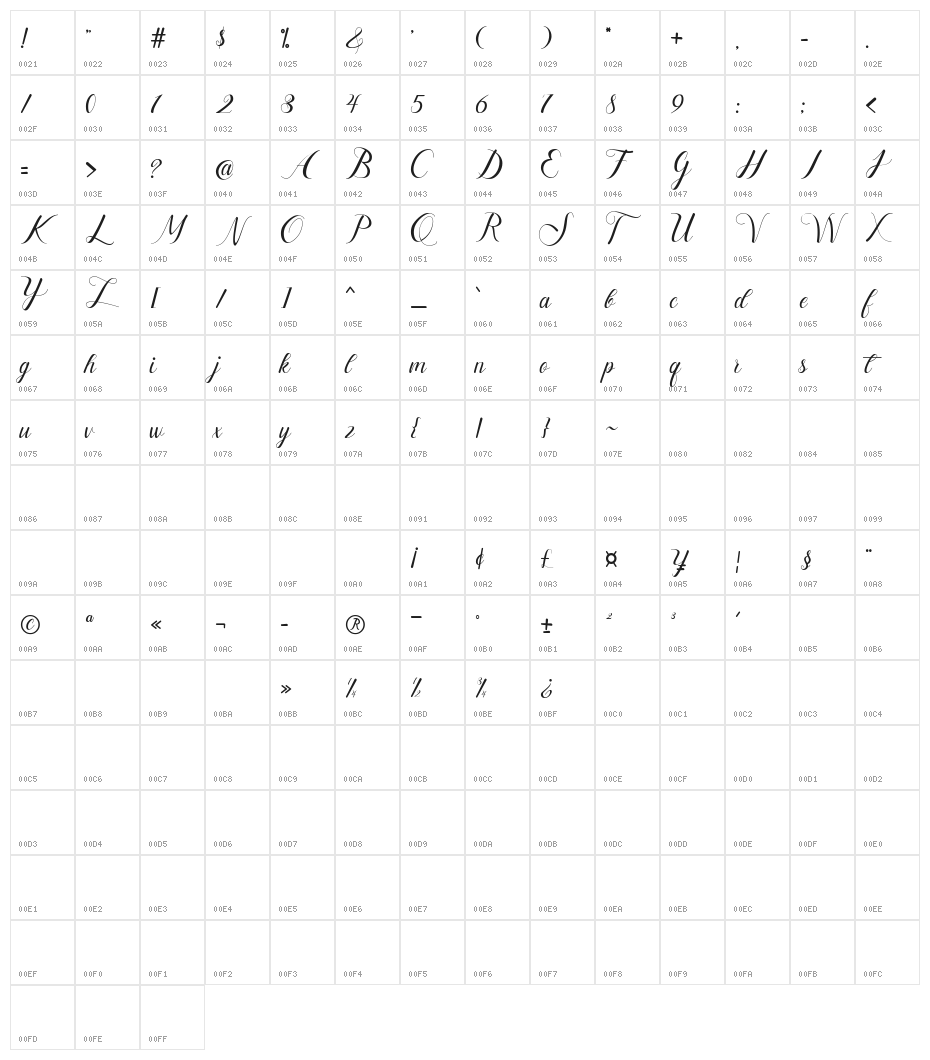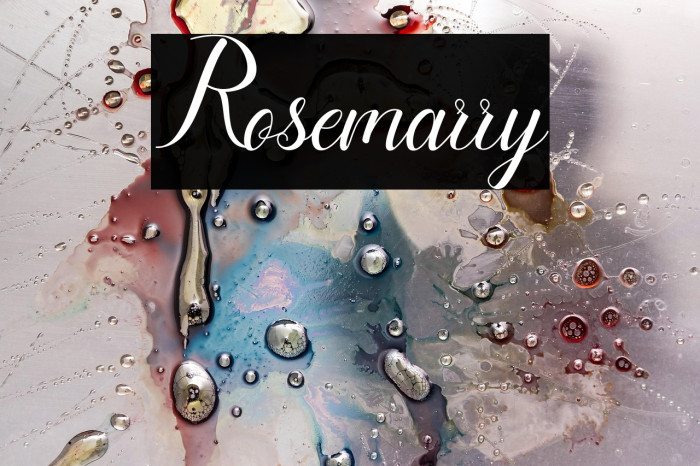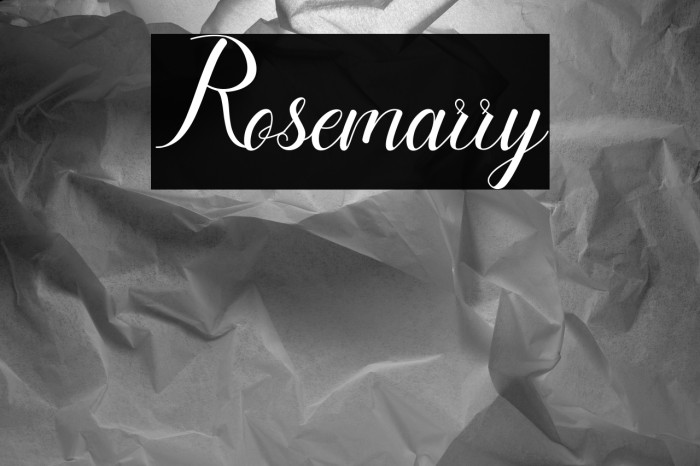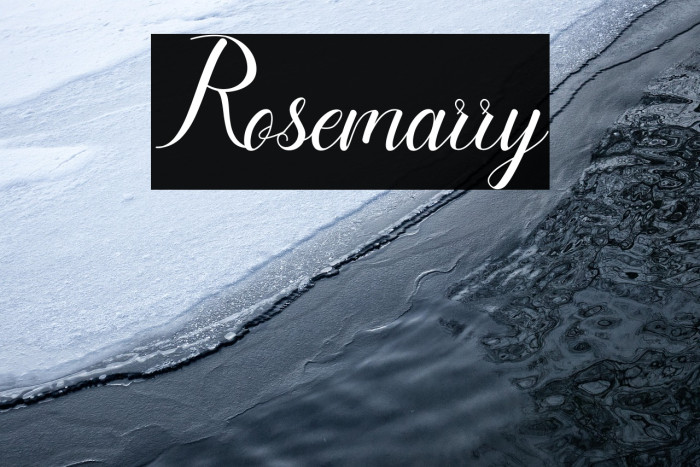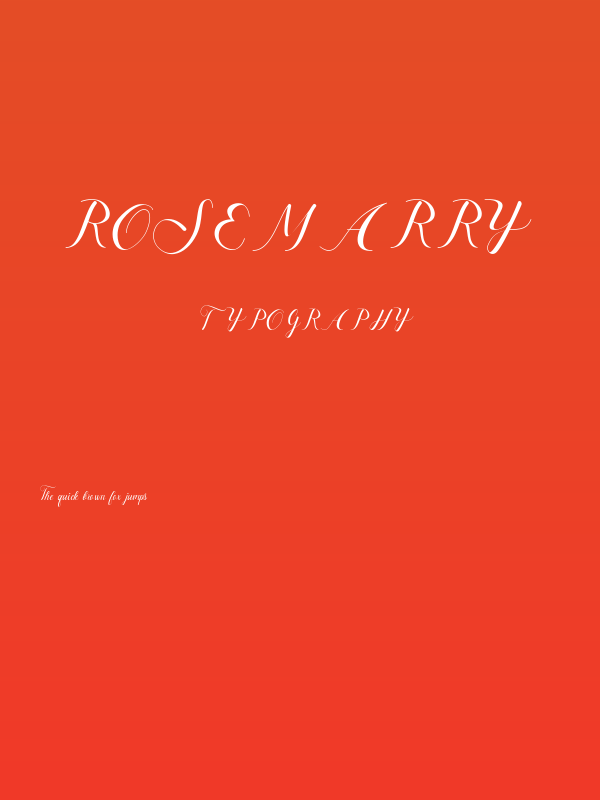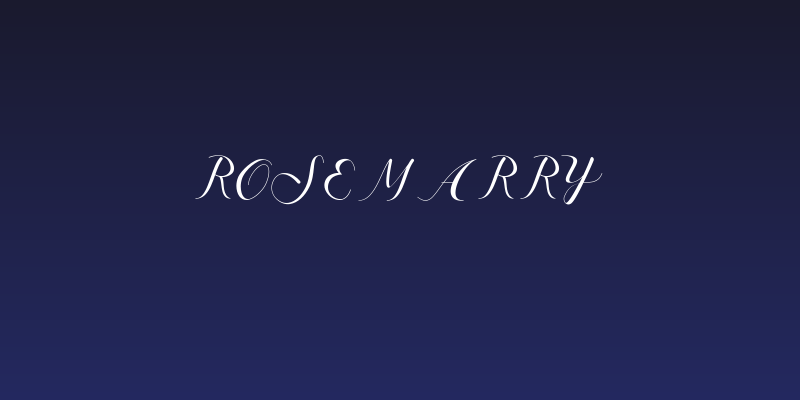
Rosemarry Font
Rosemarry Description
This font exudes elegance and sophistication with its flowing, cursive style. The uppercase letters are characterized by their sweeping curves and delicate flourishes, giving them a graceful appearance. The lowercase letters maintain a consistent fluidity, with smooth connections between each character, enhancing readability while retaining an artistic flair. The numerals are designed with a similar elegance, featuring subtle curves and a balanced weight. Special characters are thoughtfully crafted to complement the overall aesthetic, making them suitable for decorative purposes. This font is ideal for projects that require a touch of class and refinement.
| Proposed Projects | Wedding invitations, luxury branding, elegant stationery, and decorative signage. |